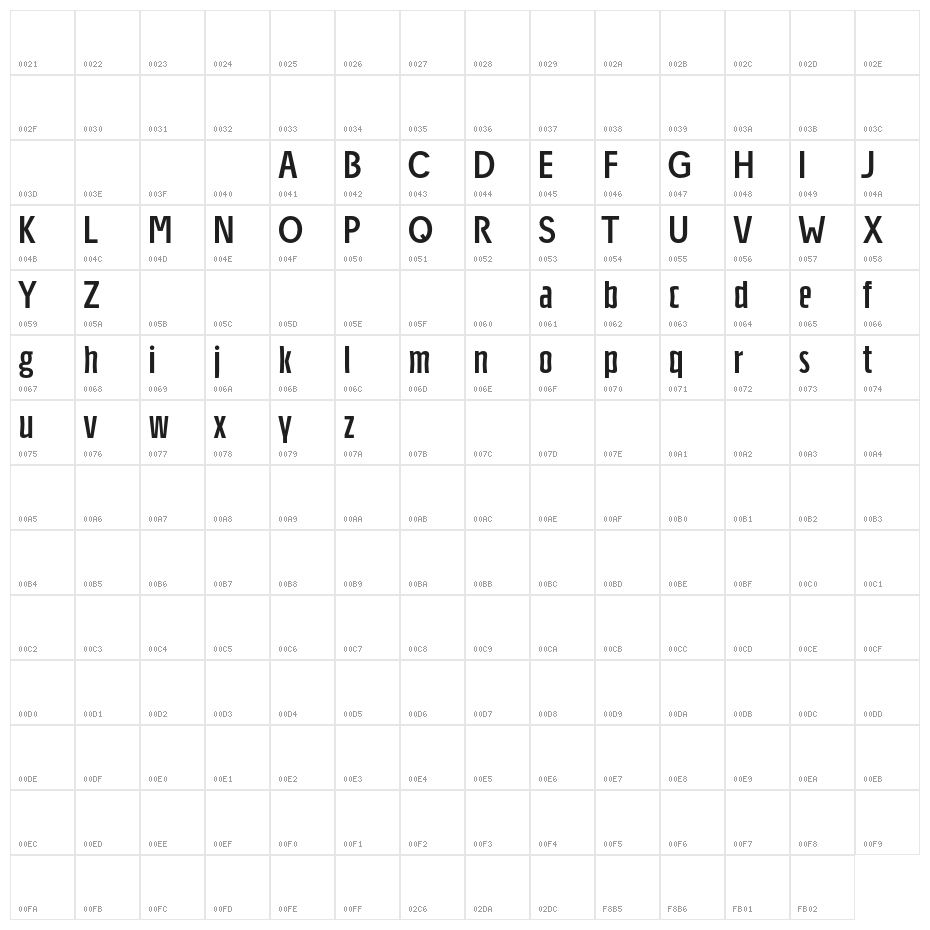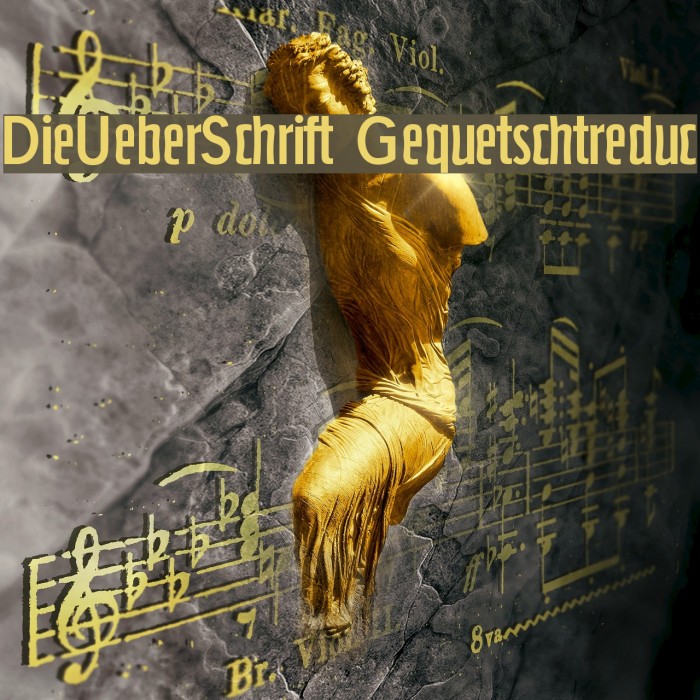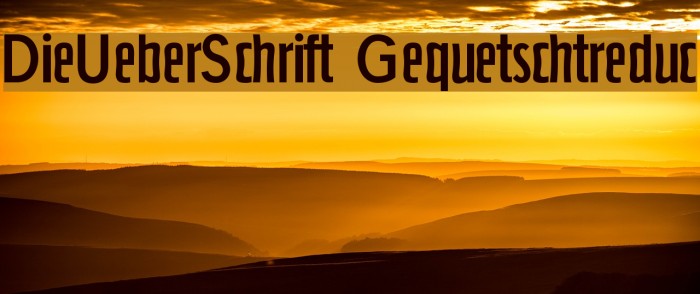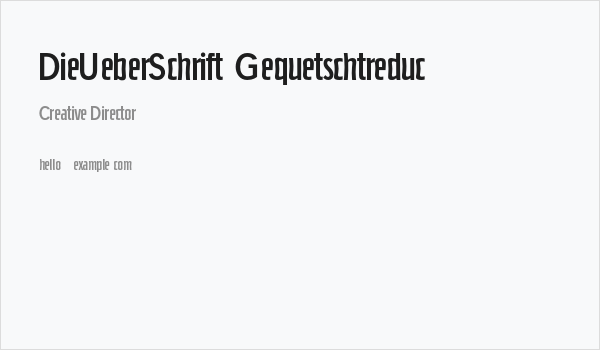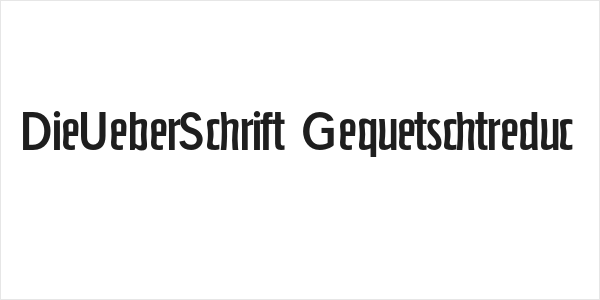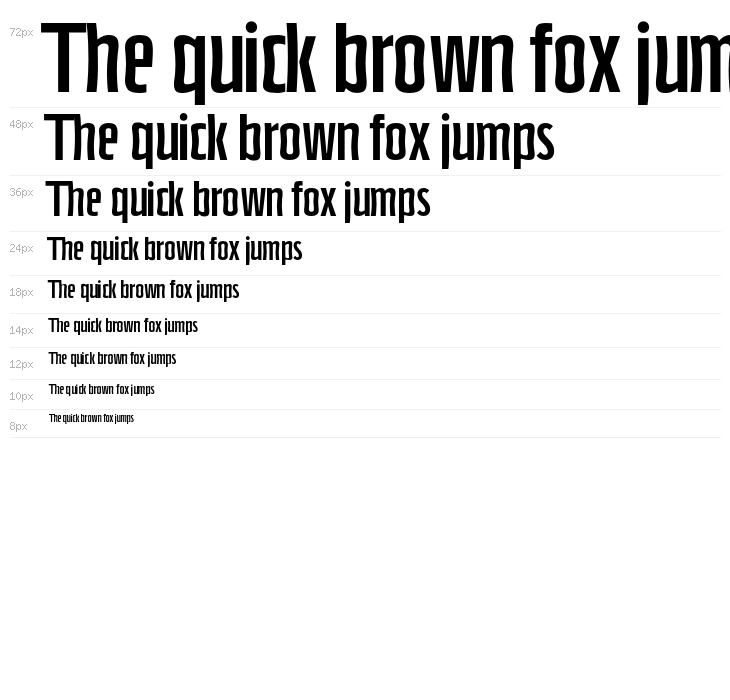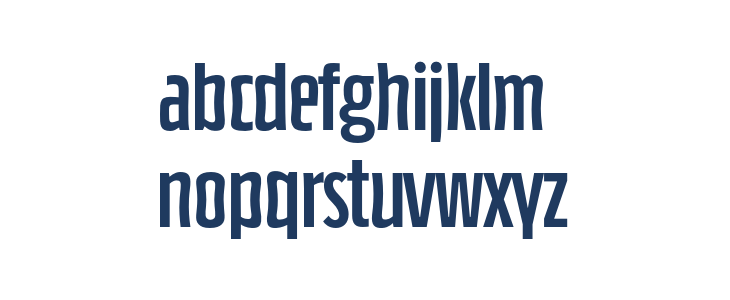
DieUeberSchrift-Gequetschtreduc Font
DieUeberSchrift-Gequetschtreduc Description
This font features a bold and condensed style with a modern flair. The uppercase letters are uniform and structured, providing a strong and impactful presence. The lowercase letters introduce a playful twist with slight variations in width and curvature, adding a unique character to the overall design. The numbers and special characters maintain the boldness and consistency seen in the alphabet, ensuring a cohesive look across all text elements. This font's distinct style makes it suitable for eye-catching headlines and creative projects.
| Proposed Projects | Ideal for branding, advertising, poster design, and any project requiring a strong visual impact. |